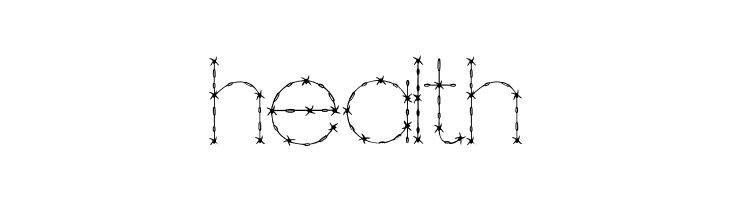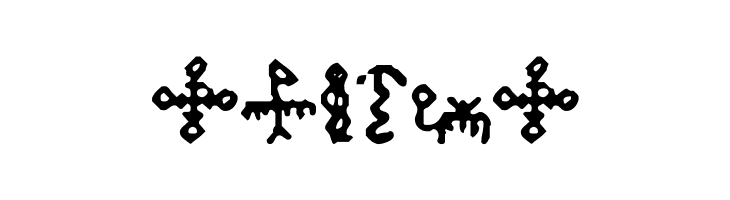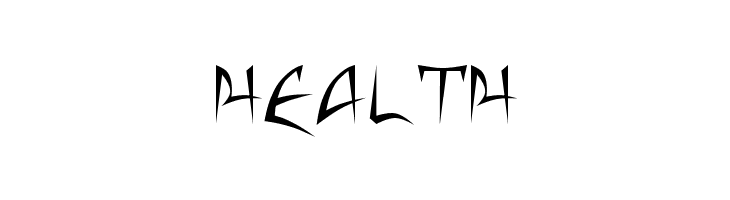
A modern serif font with elegant, elongated letterforms and subtle serifs.
A dynamic brush script font with expressive, fluid strokes and a hand-painted texture.
A bold, brush-style font with a graffiti-inspired, energetic look.
An edgy, punk-inspired font with sharp angles and whimsical embellishments.
A graffiti-inspired font with elongated, angular characters and an urban aesthetic.
A bold, graffiti-inspired font with angular, dynamic characters.
( Granaina Font is a double typeface inspired by the Granada (Andalucía-Spain) street signals which are made of pottery. - Personal-use only. For commercial use please contact owner. )
A classic serif font with high contrast and elegant curves.
A classic, elegant script font with flowing, connected letters.
Bold, geometric sans-serif font with a modern and clean design.
A bold, geometric font with high contrast and tight spacing, perfect for impactful headlines.
Whimsical pictorial font with vintage silhouette illustrations.
Whimsical pictorial font with silhouette illustrations for each character.
A charming and elegant script font with smooth, flowing lines.
A bold, futuristic font with geometric and modern design elements.
Cartoonish, character-based font with grandparent and child illustrations.
A pictorial font featuring diverse animal and insect illustrations as glyphs.
An abstract, decorative font with geometric line patterns.
A rugged, distressed font with a bold, industrial feel.
Elegant, high-contrast decorative script with ornate uppercase and flowing lowercase.
A playful, handwritten font with a whimsical and dynamic style.
A bold, decorative font with playful curves and a modern-vintage style.
Ornate, tribal-inspired pictorial font with bold, intricate glyphs.
A geometric, angular font with a futuristic and bold style.
A hand-drawn, chalkboard-style font with a rough, textured appearance.
A playful, hand-drawn outline font with a whimsical and cartoonish style.
A playful and whimsical font with uneven, dynamic letterforms.
A playful, outlined font with quirky, exaggerated serifs and a whimsical style.
A bold, playful handwritten font with an energetic and artistic style.
A geometric, pixelated font with a digital, futuristic aesthetic.
A classic serif font with high contrast and elegant serifs, perfect for sophisticated designs.
An abstract, artistic font with complex line patterns and geometric shapes.
An abstract, grid-based font with geometric and artistic elements.